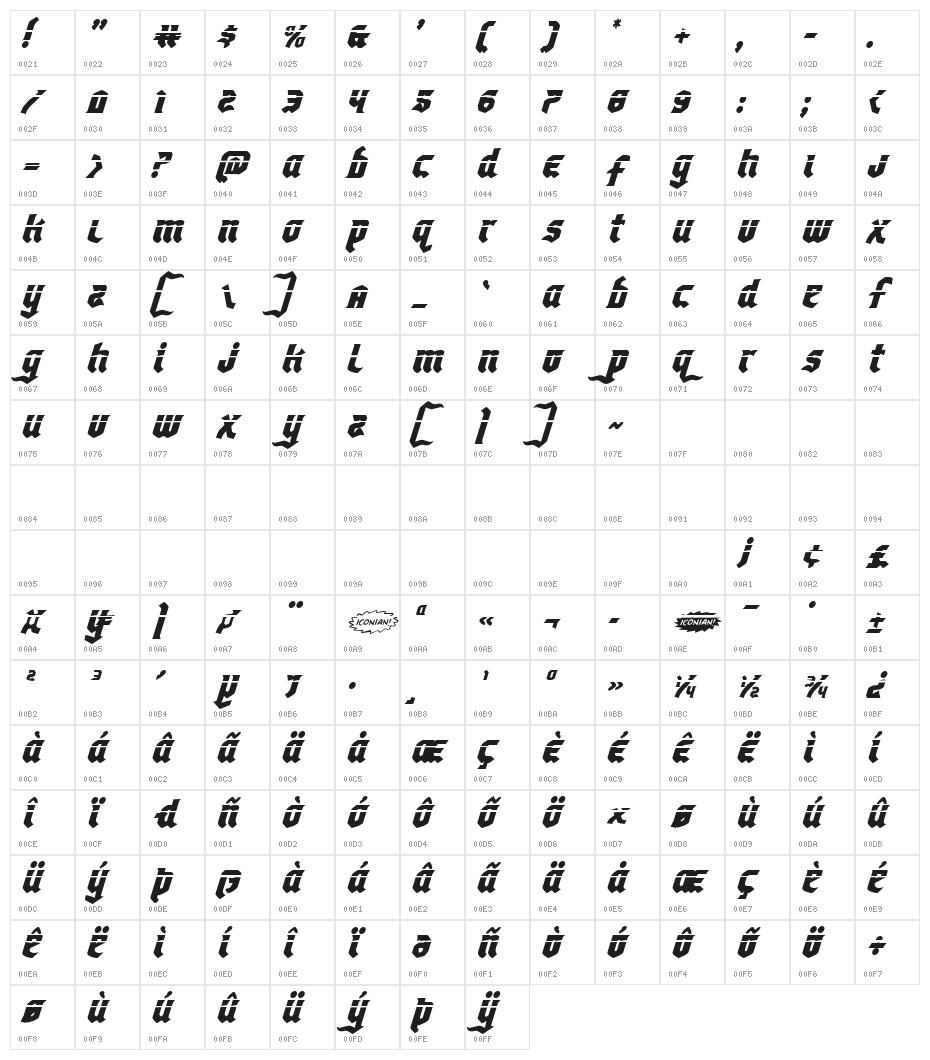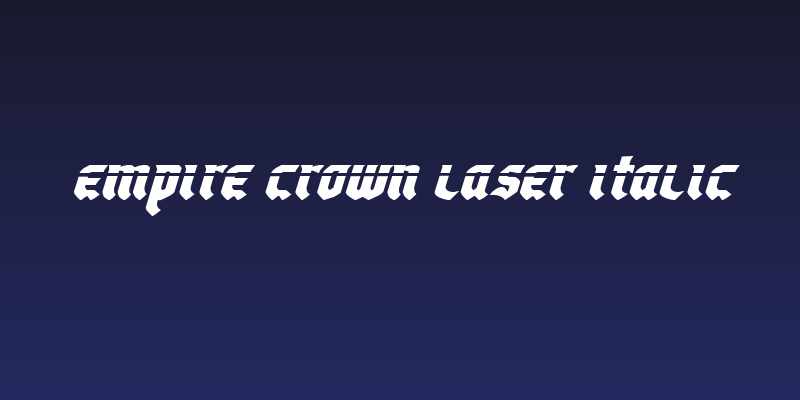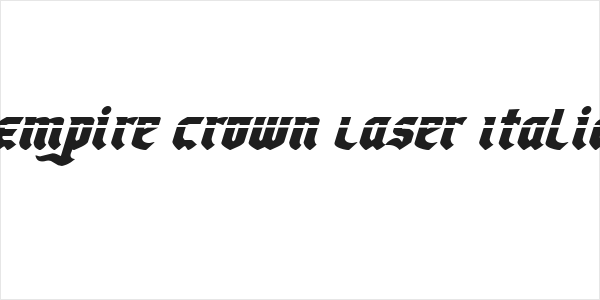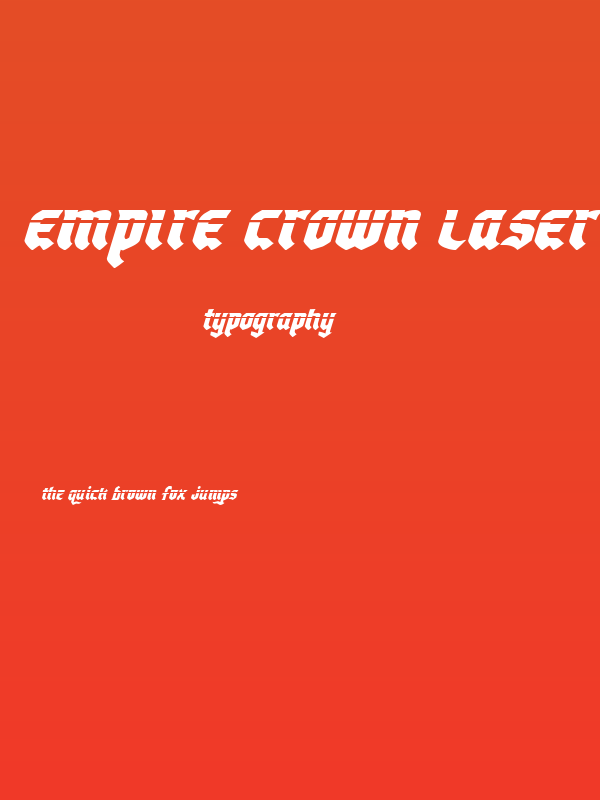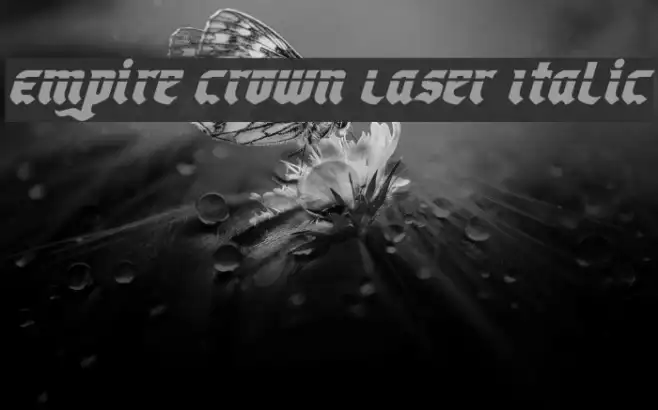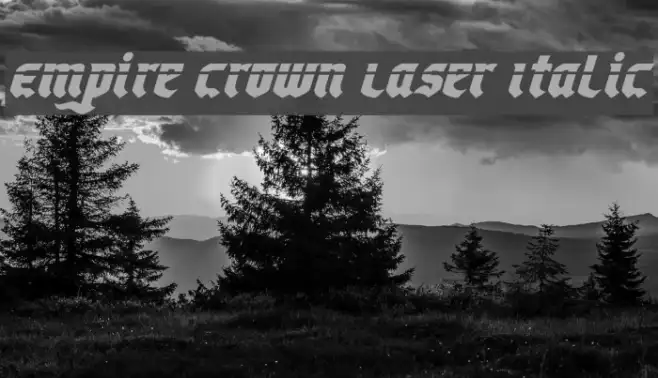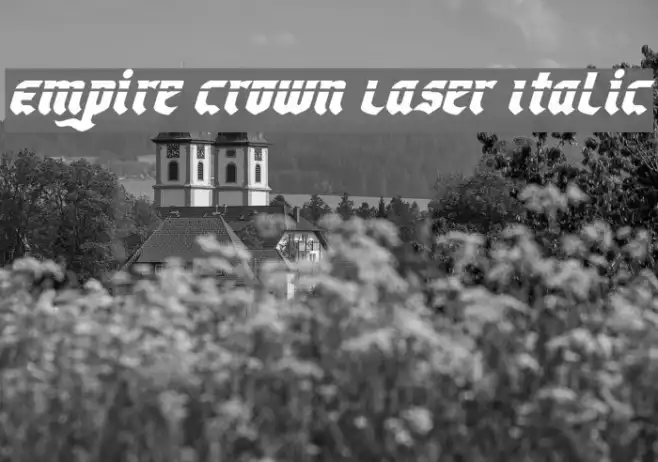
Empire Crown Laser Italic Font
Empire Crown Laser Italic Description
This font features a bold and dynamic style with sharp, angular edges and a distinct italic slant. The characters are heavily stylized, giving them a futuristic and aggressive appearance. The uppercase and lowercase letters maintain a consistent design, with exaggerated serifs and a strong presence. The numbers and special characters follow the same bold and angular theme, ensuring uniformity across all glyphs. This font's unique design makes it stand out, ideal for projects that require a strong visual impact.
EMPIRE-CROWN-LASER-ITALIC UPPERCASE
EMPIRE-CROWN-LASER-ITALIC LOWERCASE
EMPIRE-CROWN-LASER-ITALIC OTHER CHARS
| Proposed Projects | Ideal for branding, logos, video game titles, and posters that require a bold and futuristic look. |